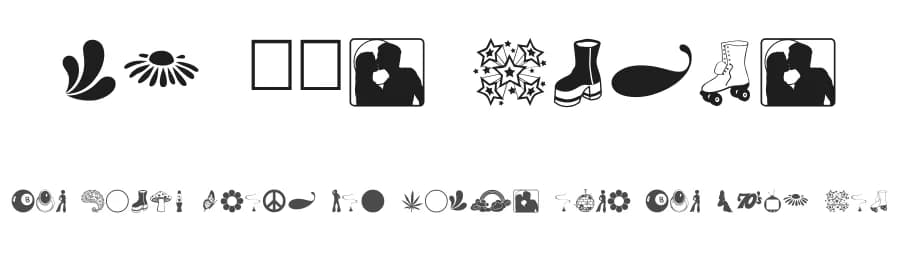
About My 70s Dings Font
My 70s Dings is a dingbat font designed by Jess Latham. It includes 55 glyphs, a regular weight, OTF (CFF) format, and 89 languages. My 70s Dings is free to download; check the license details on this page before commercial use. Dingbat fonts like My 70s Dings work best for icons, ornaments, bullet points, and decorative accents.
My 70s Dings Font is a versatile dingbats font that works for both headings and body text. Pair it with a contrasting sans-serif or serif font to add visual interest and a clear distinction between titles and body copy.
My 70s Dings Font
by Jess Latham
My 70s Dings Font is a dingbats typeface by Jess Latham, ideal for logos, invitations, branding, and creative projects.